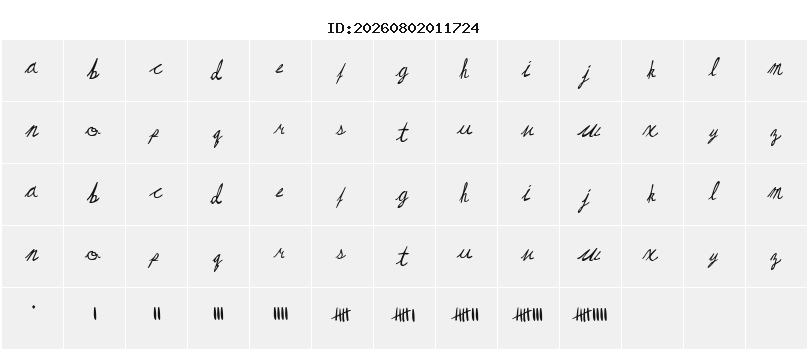
• Font Name: May Queen
• Designer: Tom Murphy 7
• Manufacturer: [Divide By Zero] Fonts
• Description: Created by Tom Murphy 7. This is a handwriting font. Kerning makes this font look a lot better. Liz Phair rules! [Divide By Zero] fonts: http://members.aol.com/vroomfonde/ttf/